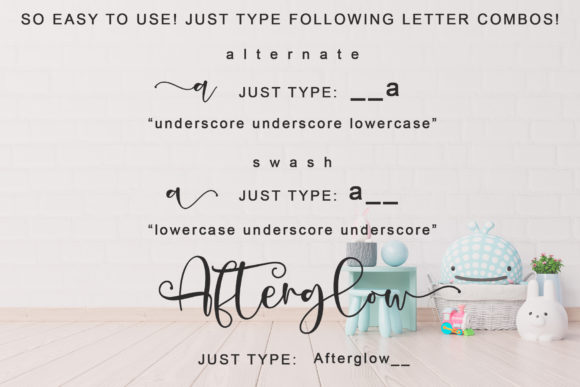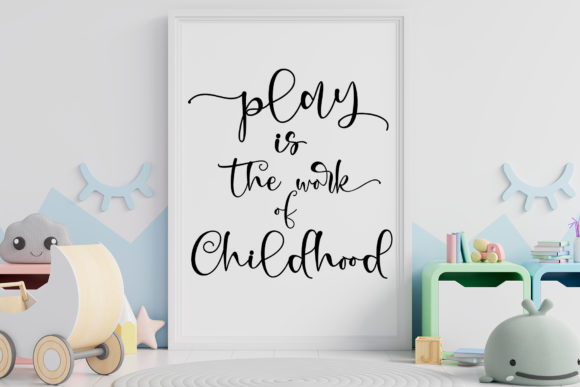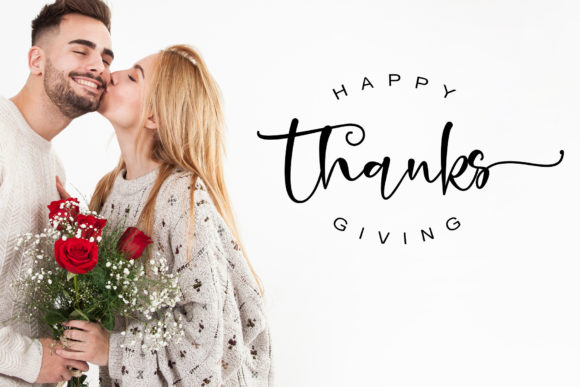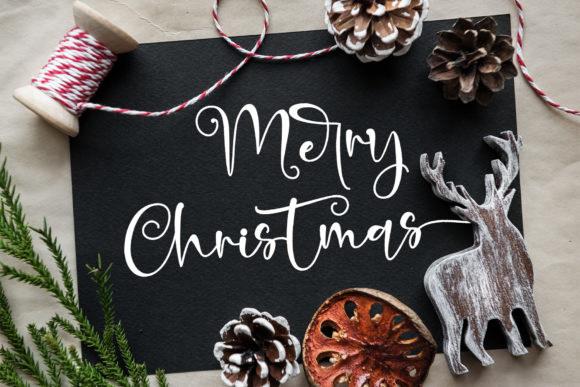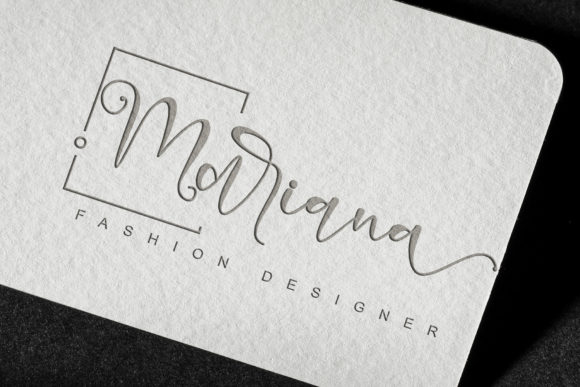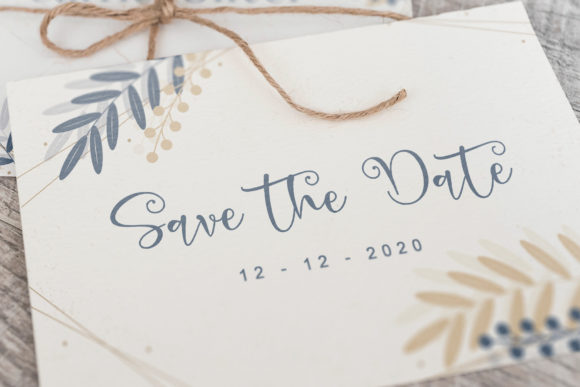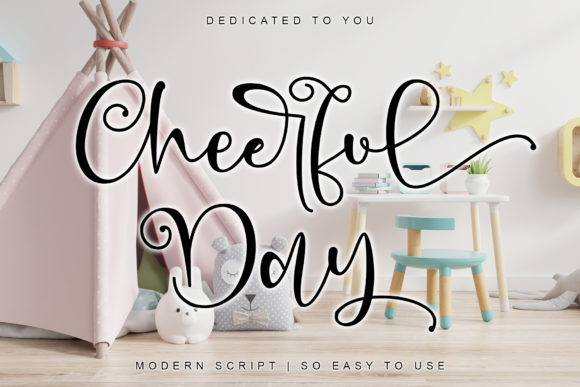
Introducing Cheerful Day Font: Elevate Your Designs with Elegance and Flair
Are you searching for a font that exudes elegance, sophistication, and a touch of whimsy? Look no further than the Cheerful Day Font. This beautiful, handwritten font is perfect for designers and crafters seeking to add a personal touch to their projects. With its flowing lines, gorgeous glyphs, and stunning alternates, Cheerful Day is sure to become your go-to font for a wide range of design applications.
A Font that Exudes Elegance and Sophistication
Cheerful Day Font feels incredibly elegant and flowing, making it an ideal choice for designs that require a touch of refinement. Its varying baseline and smooth lines create a sense of movement and fluidity, adding a dynamic touch to any design. Whether you’re working on wedding invitations, thank you cards, quotes, or greeting cards, Cheerful Day is sure to impress.
One of the best things about Cheerful Day Font is its versatility. It’s perfect for a wide range of design applications, including:
- Quotes and inspirational sayings
What Sets Cheerful Day Apart
So, what makes Cheerful Day Font so special? Here are just a few features that set it apart:
- Varying baseline: Cheerful Day’s varying baseline creates a sense of movement and fluidity, adding a dynamic touch to any design.
- Smooth lines: The font’s smooth lines and curves create a sense of elegance and sophistication.
- Gorgeous glyphs: Cheerful Day features a wide range of gorgeous glyphs, including alternates, ligatures, and swashes.
- Stunning alternates: The font’s stunning alternates allow you to add a touch of personality and whimsy to your designs.
Why Designers and Crafters Love Cheerful Day
Designers and crafters love Cheerful Day Font for many reasons. Here are just a few:
- Ease of use: Cheerful Day is easy to use and works seamlessly with most design software.
- Customization options: The font’s alternates and glyphs allow for endless customization options.
- Unique and eye-catching: Cheerful Day is a unique and eye-catching font that’s sure to make your designs stand out.
- High-quality: The font is high-quality and designed to work perfectly at a wide range of sizes.
Tips for Using Cheerful Day Font
Here are a few tips for using Cheerful Day Font in your designs:
- Pair with a simple font: Pair Cheerful Day with a simple font for a striking contrast.
- Experiment with alternates: Experiment with the font’s alternates and glyphs to add personality to your designs.
- Use for headlines and titles: Use Cheerful Day for headlines and titles to add a touch of elegance and sophistication.
- Don’t be afraid to get creative: Don’t be afraid to get creative and try new things with Cheerful Day Font.
In conclusion, Cheerful Day Font is a beautiful, elegant, and versatile font that’s perfect for designers and crafters seeking to add a personal touch to their projects. With its flowing lines, gorgeous glyphs, and stunning alternates, Cheerful Day is sure to become your go-to font for a wide range of design applications. Whether you’re working on wedding invitations, thank you cards, or logos, Cheerful Day is the perfect choice.